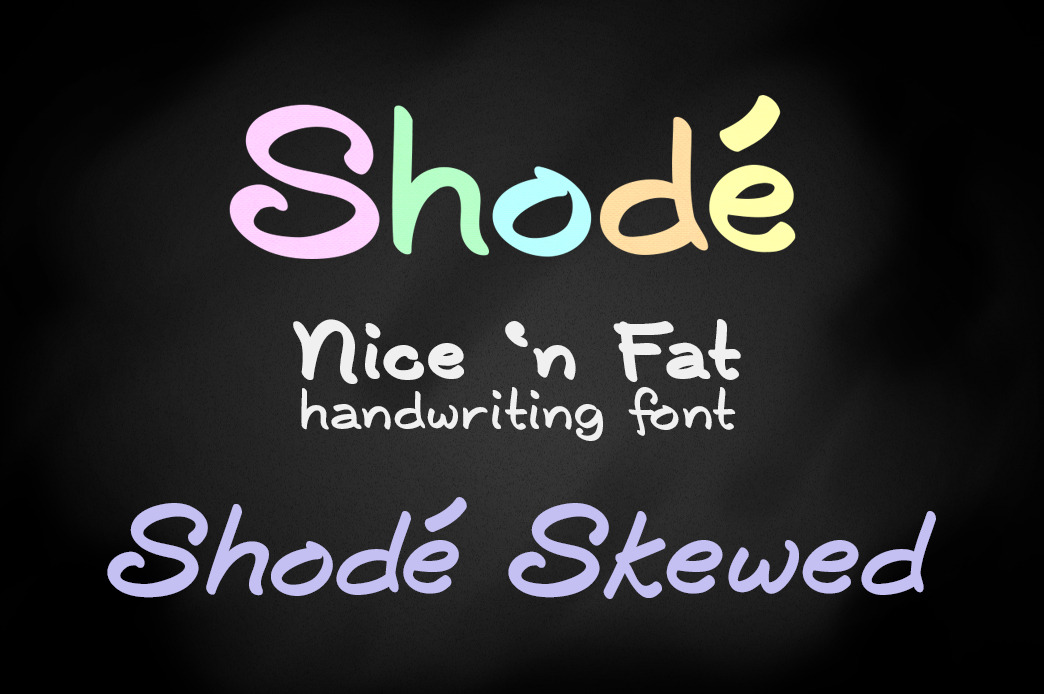
Shodé handwriting font
Shodé (show-day) is a handwriting font created with a round brush, at a 135 degree angle. Available in Regular, Italic (Skewed), Bold (Fluffy) & Bold Italic (Fluffy Skewed), Shodé features some optional ligatures (see words "too", "cray", "salty", etc.), which can be accessed using any program that supports these OpenType features. There are also characters with diacritical marks, plus a few alternate characters.